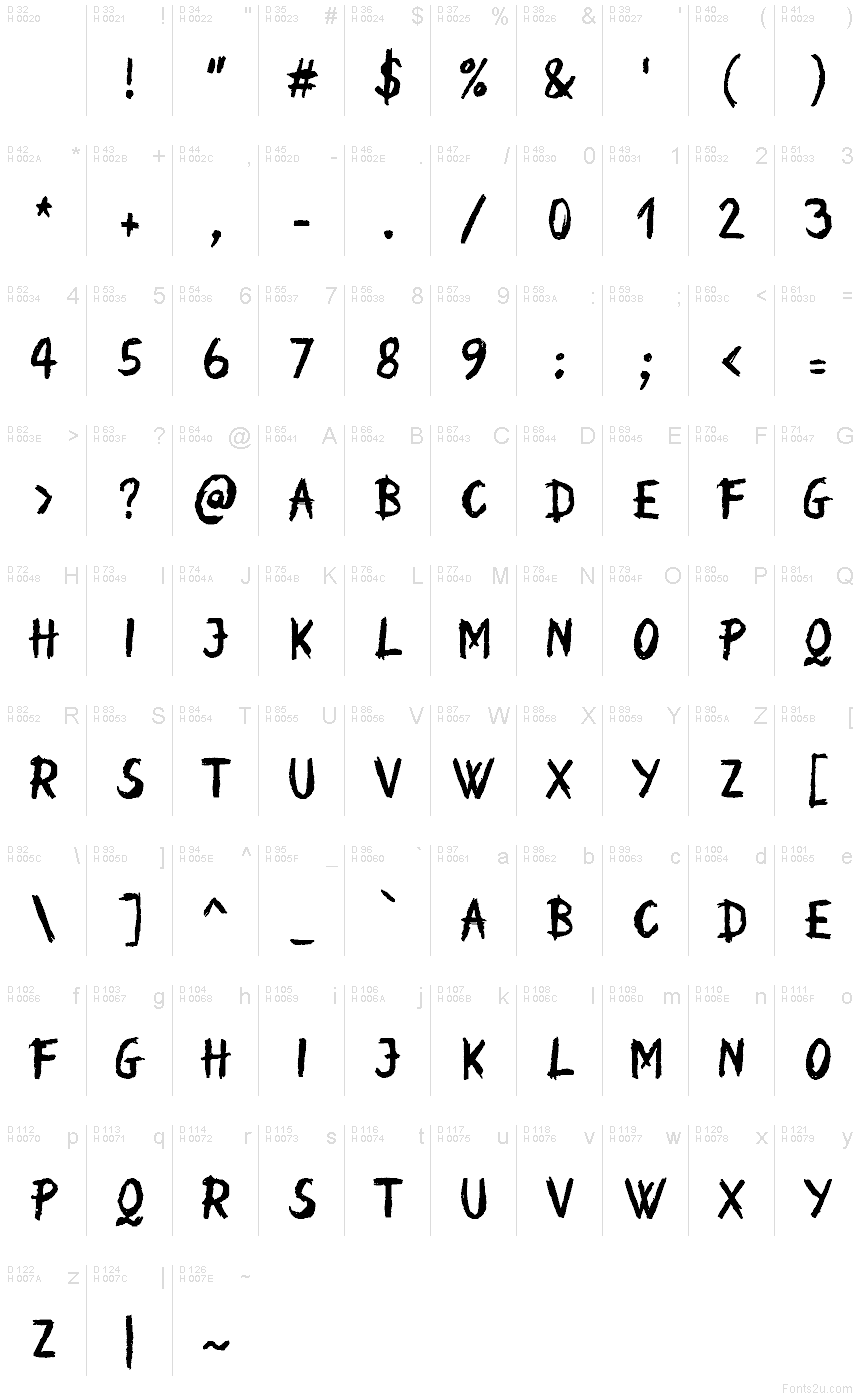
Moonlit Flow
Moonlit Flow font by GGBotNet is a free bold trash script display font. Built from splintered brushstrokes and inky frays, it crackles with raw energy—like letters clawed into a damp poster wall. The rhythm is jagged yet readable, with tapered spikes and blotchy textures that add grit without turning to mush at smaller headline sizes.
Using Moonlit Flow, titles leap off horror posters, Halloween promos, metal or punk merch, escape room branding, thriller book covers, and gritty game splash screens. The irregular stroke weight creates a tense, cinematic pulse that commands attention in short, punchy lines. For balance, pair this free font with a clean condensed grotesque; set Moonlit Flow large with slightly looser tracking to let those spiky terminals breathe.